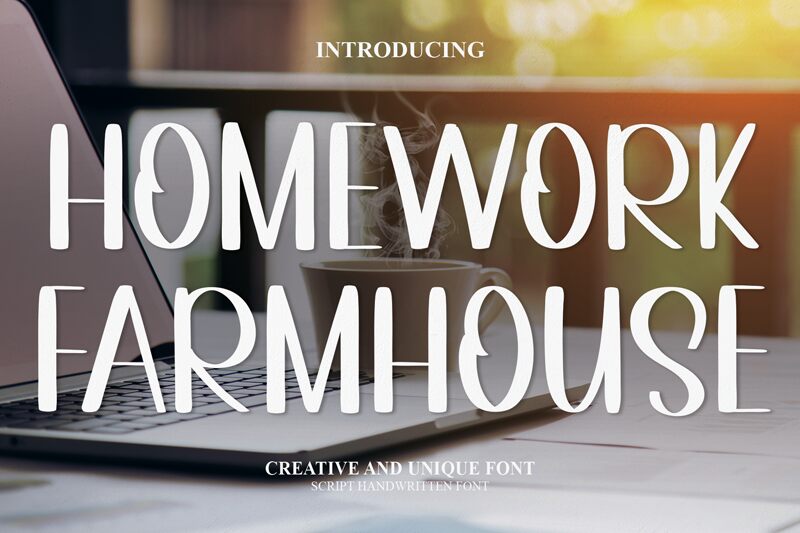
Homework Farmhouse
Homework Farmhouse is a charming semi-light handwritten font designed by Belina Studio. Its smooth marker style adds a personal touch to any project, making it perfect for invitations, quotes, and social media posts. The semi-condensed width of the font allows for more text to fit in a limited space without sacrificing readability. This versatile typeface is also suitable for branding projects such as logos, labels, and packaging. With Homework Farmhouse, you can bring a cozy and welcoming feel to your designs that will surely catch everyone's attention!
the latest style letters are perfect for wall displays, wedding invitations, social media post logos, advertisements, product packaging, product designs, labels, photography, watermarks, invitations, stationery, and any project that requires taste handwriting.